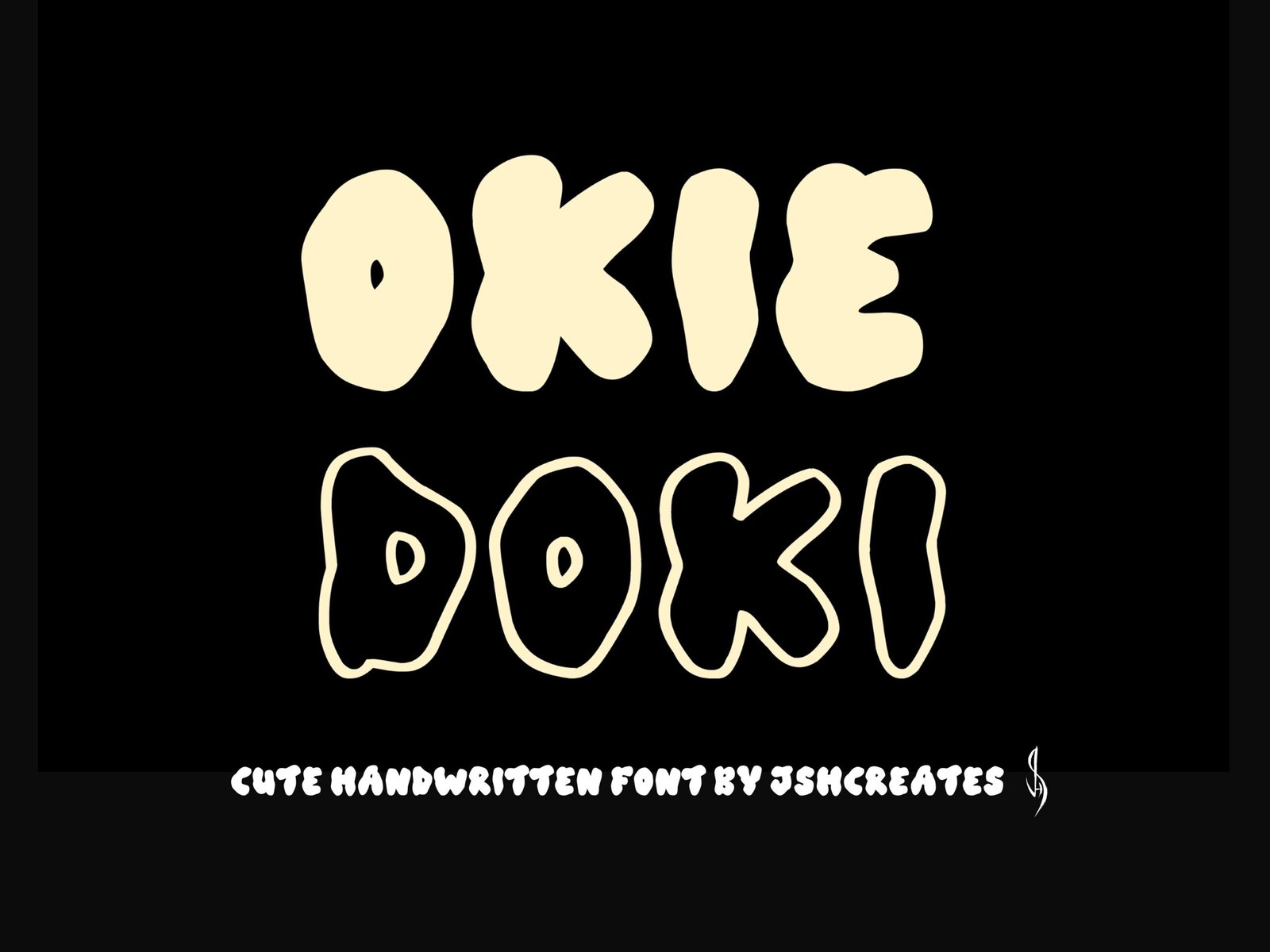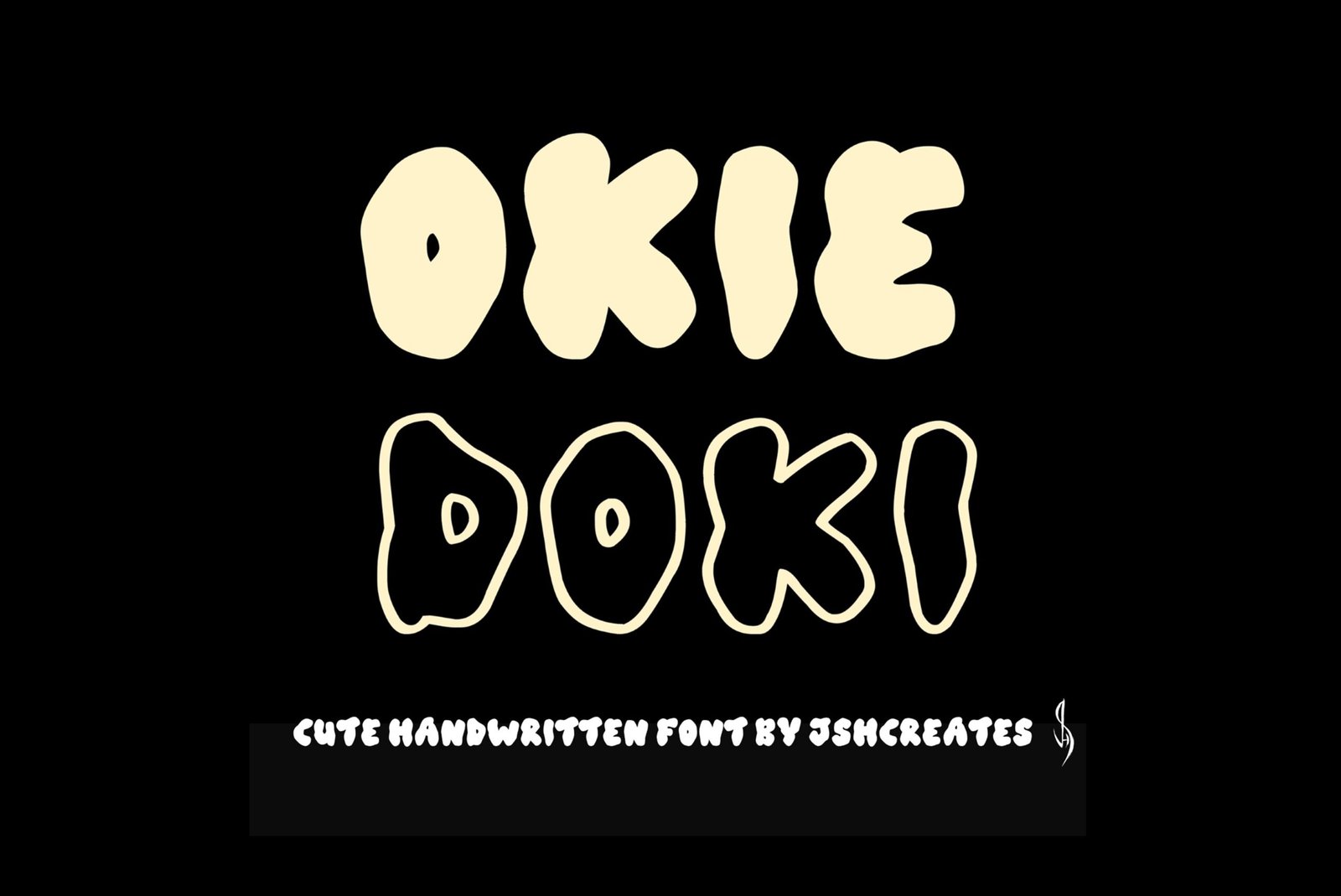
Okie Doki Font
Cute handwritten font. “Okie Doki”. Perfect for advertising and display purposes, including banners, book covers, shirts, posters, logos and much more!